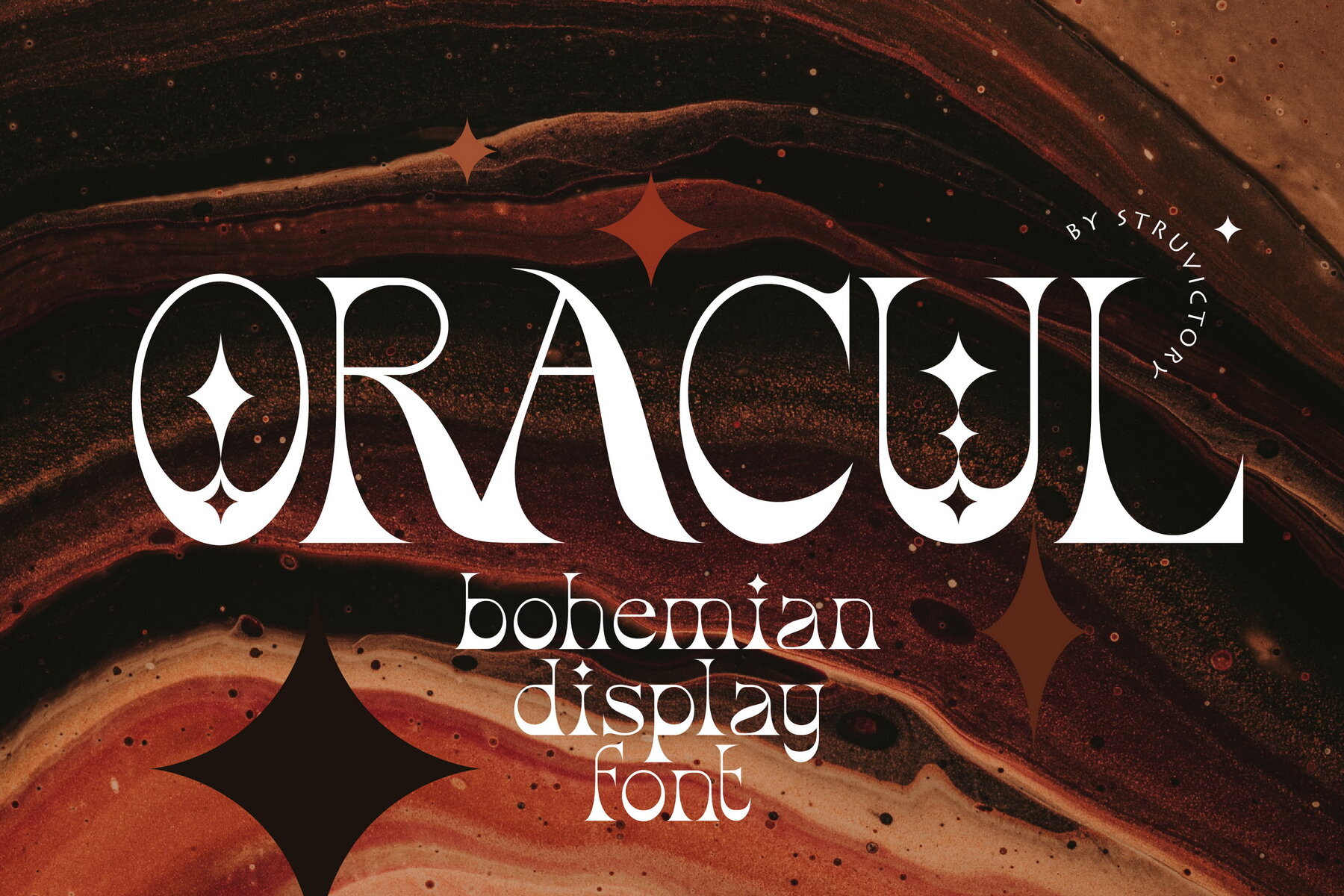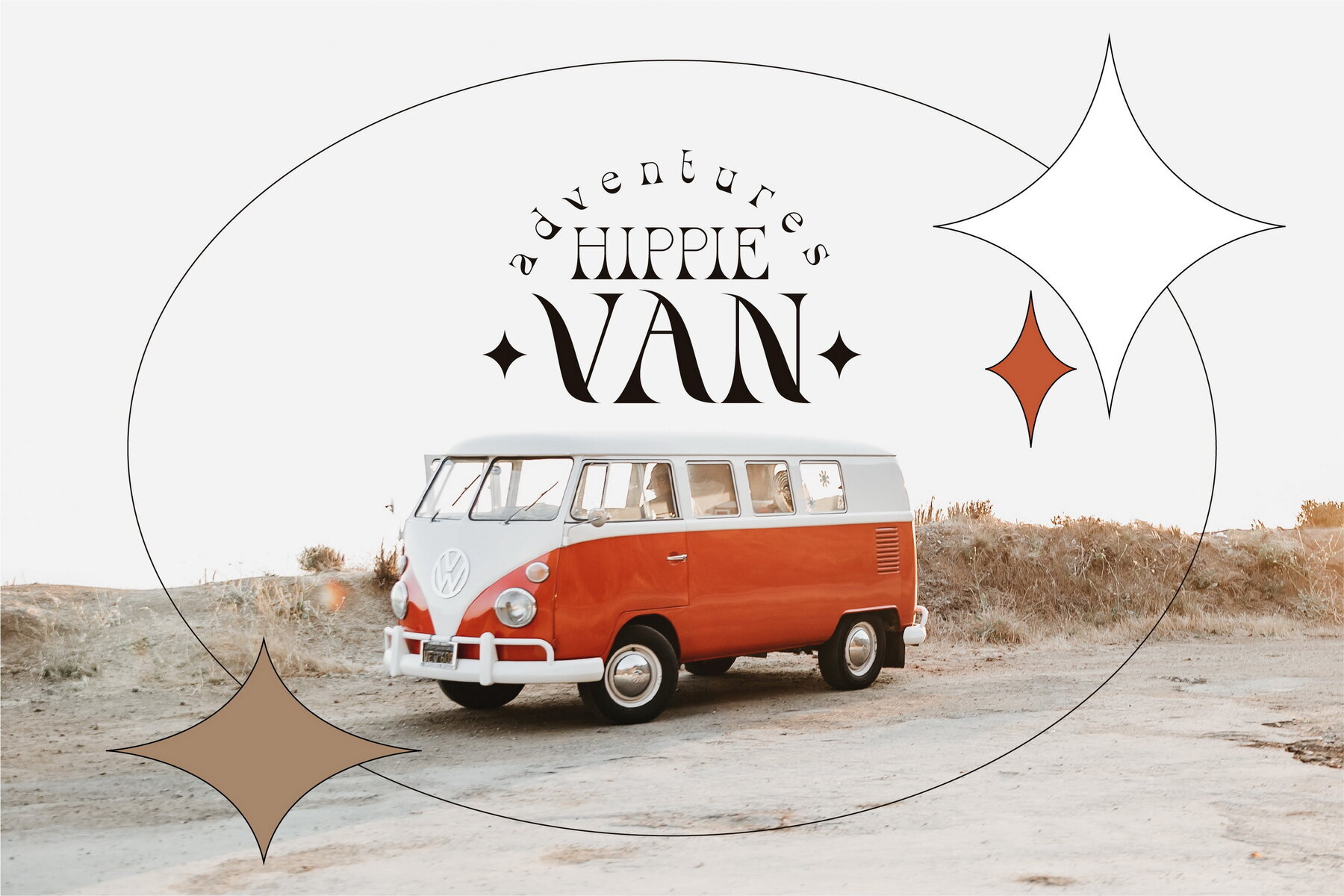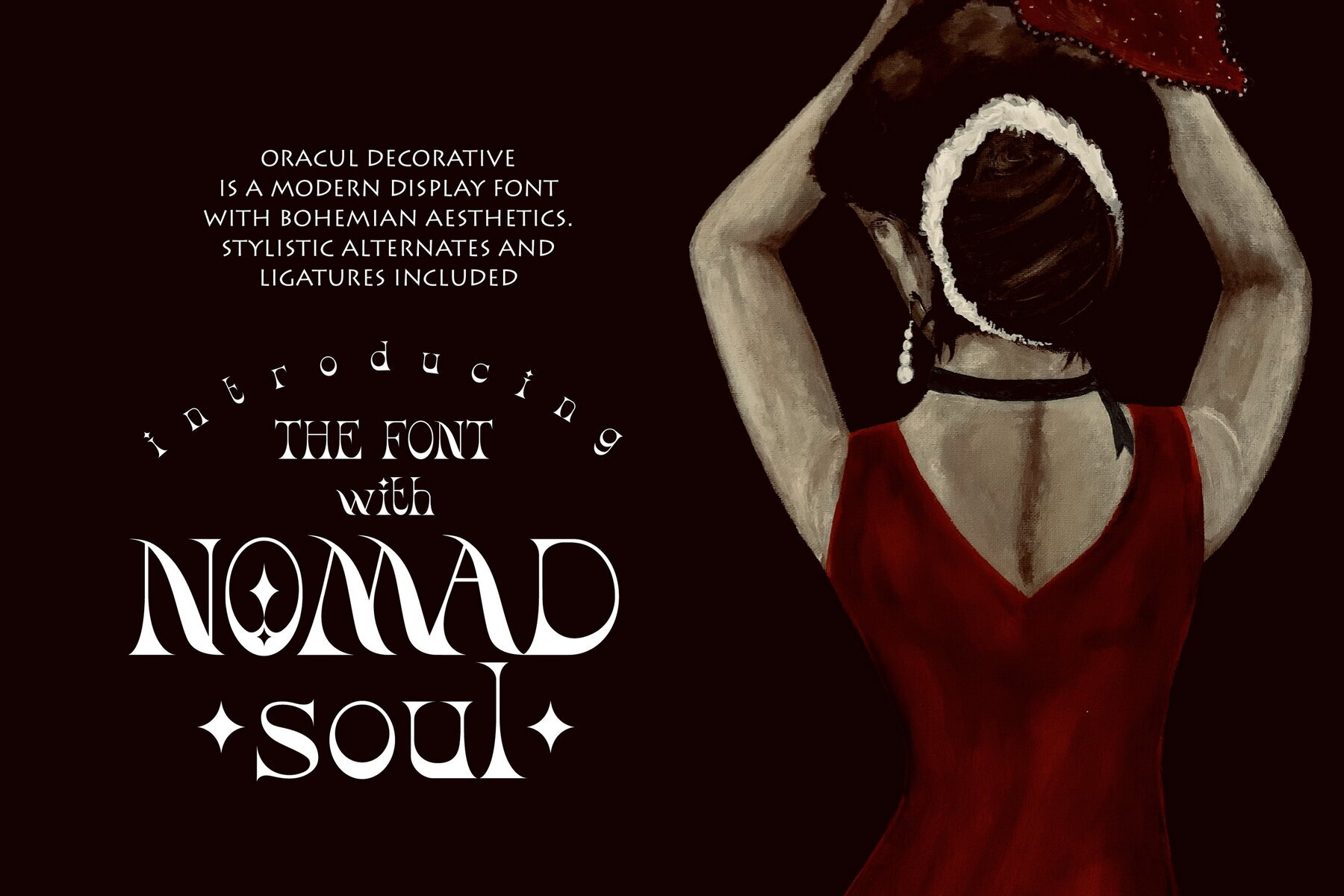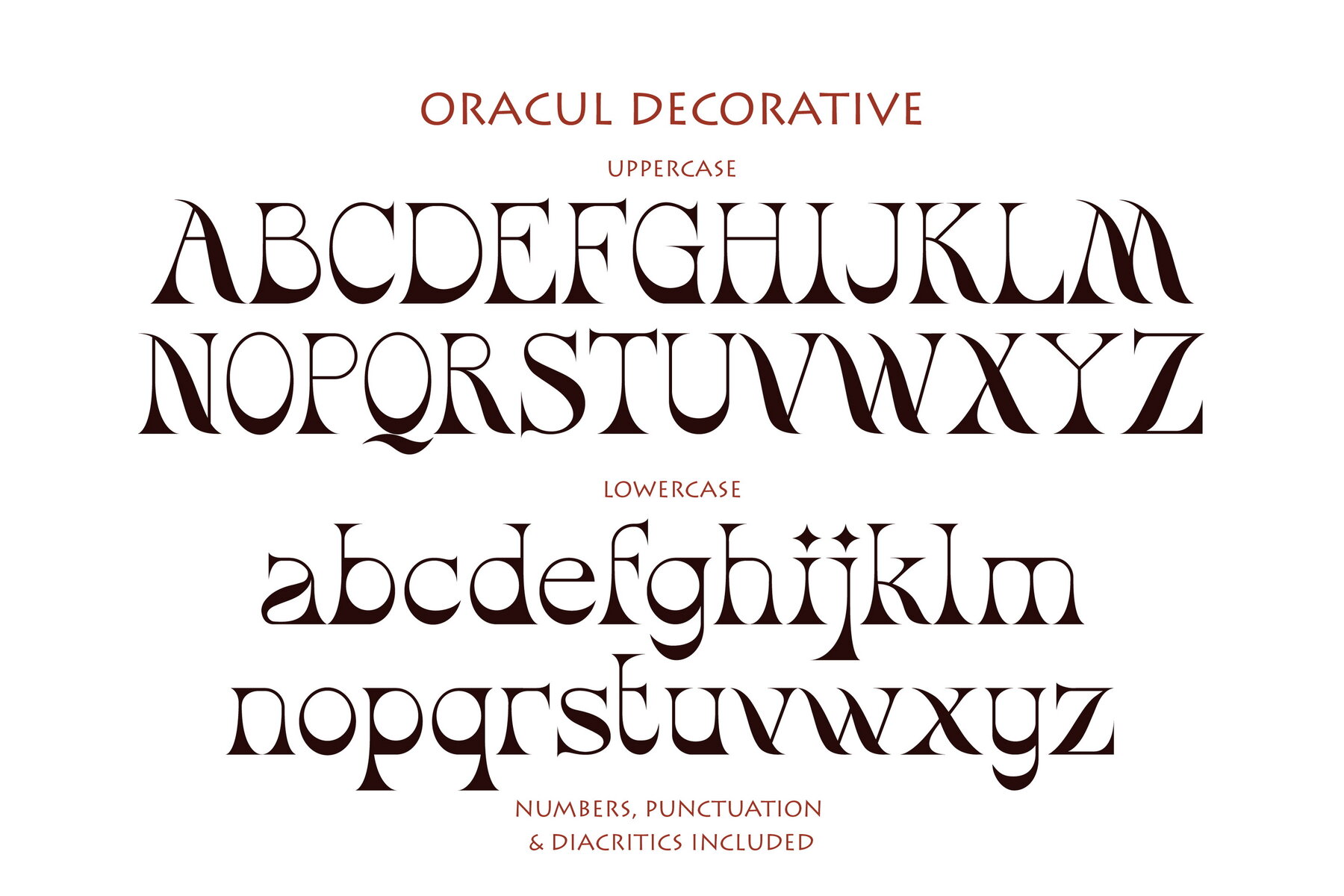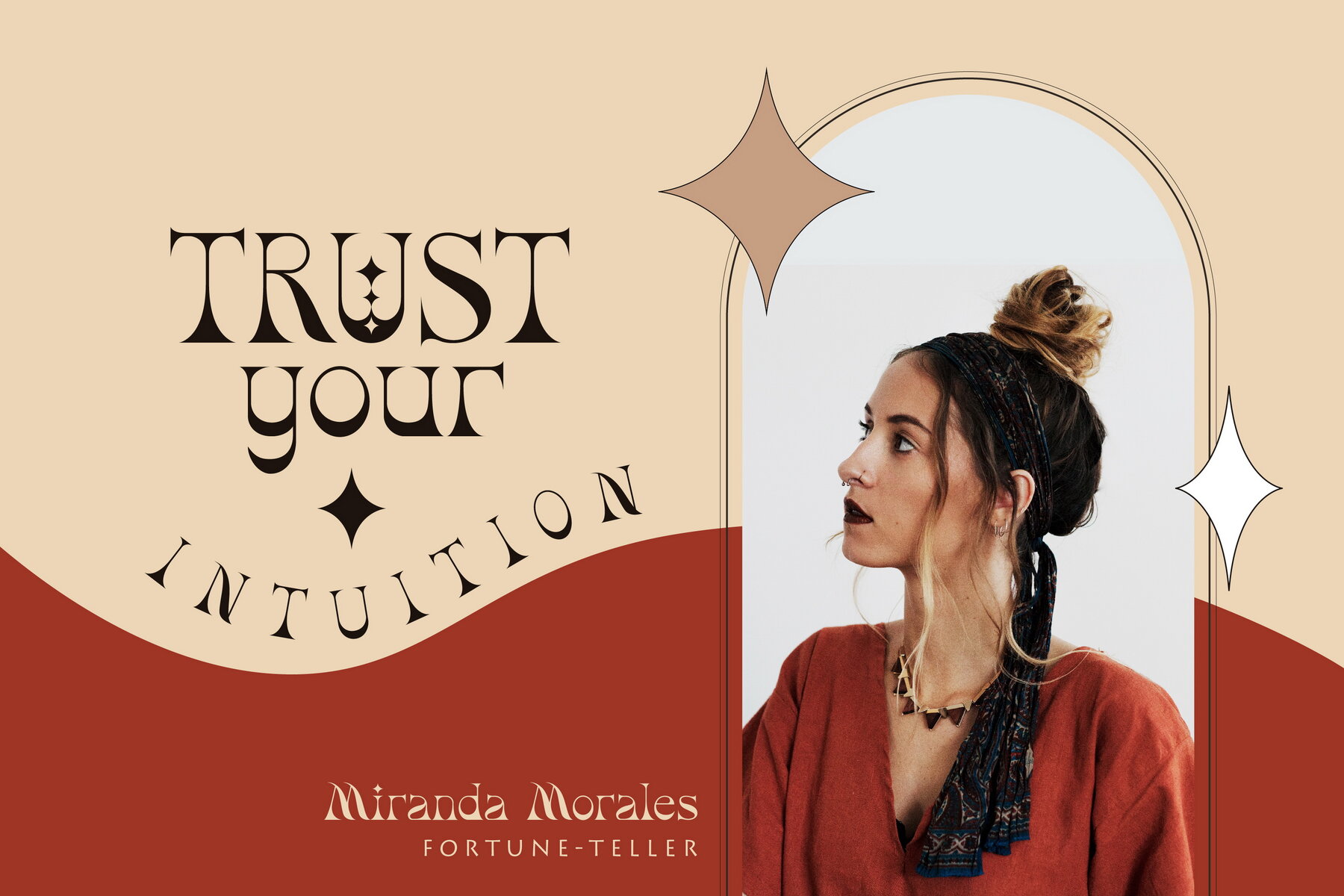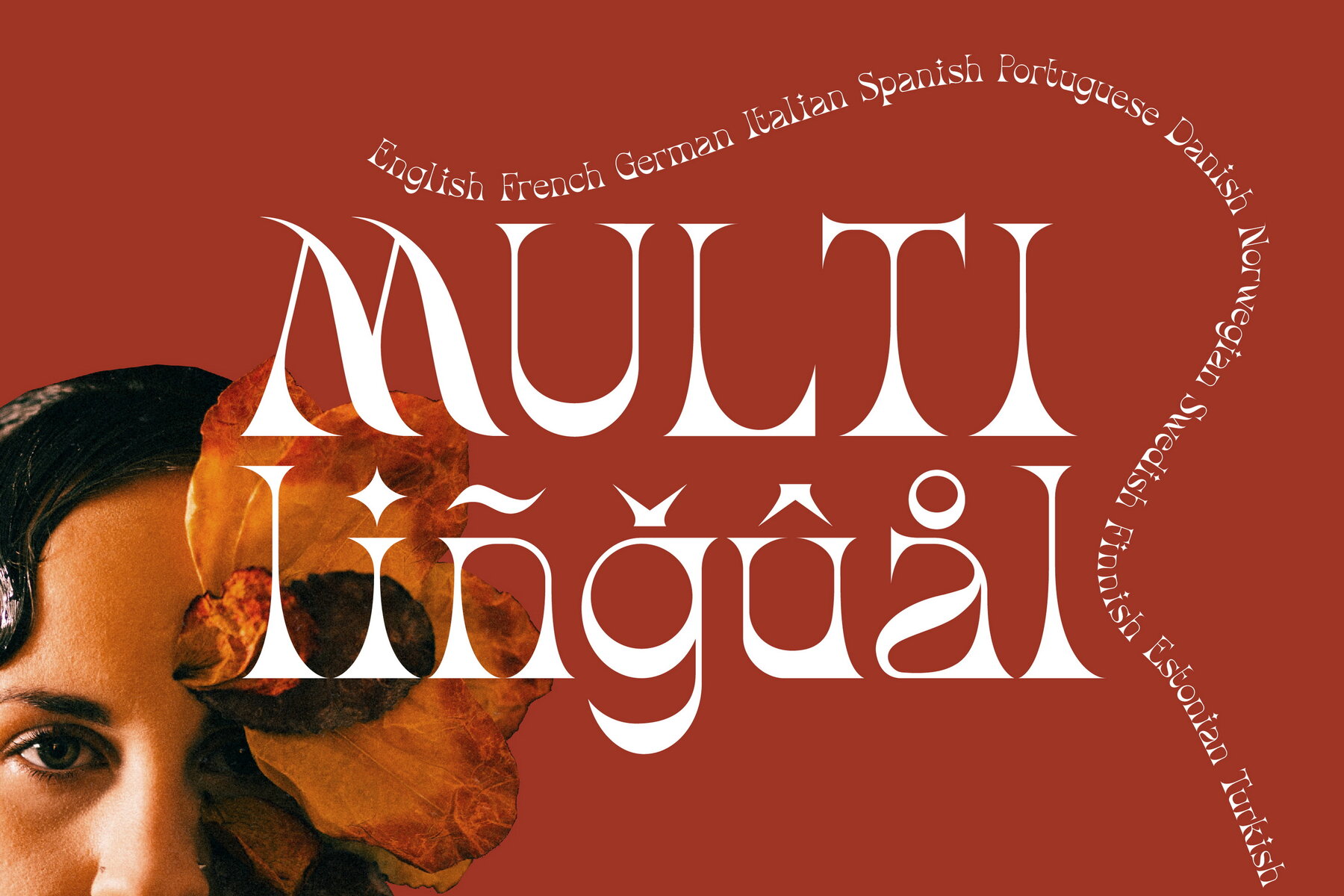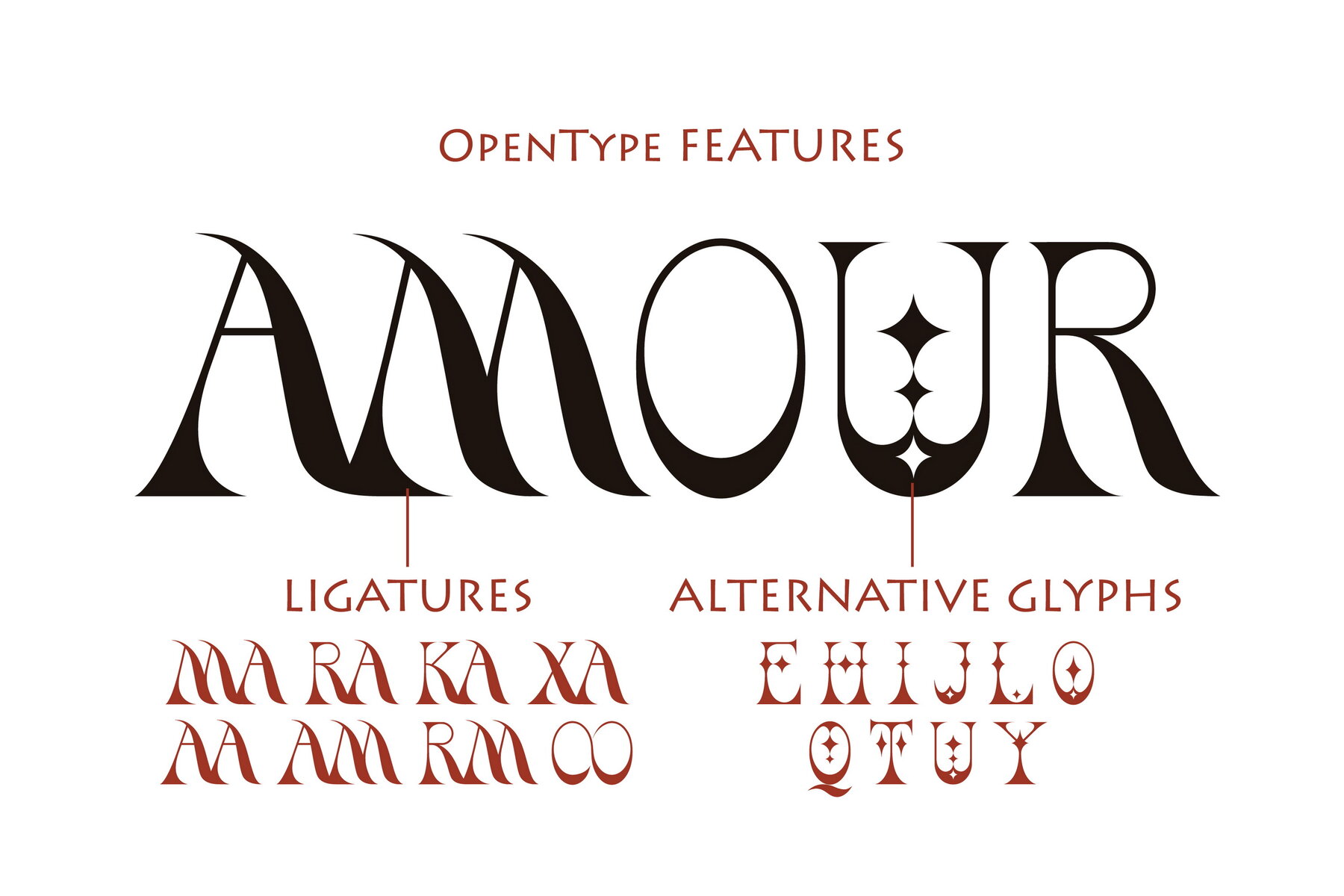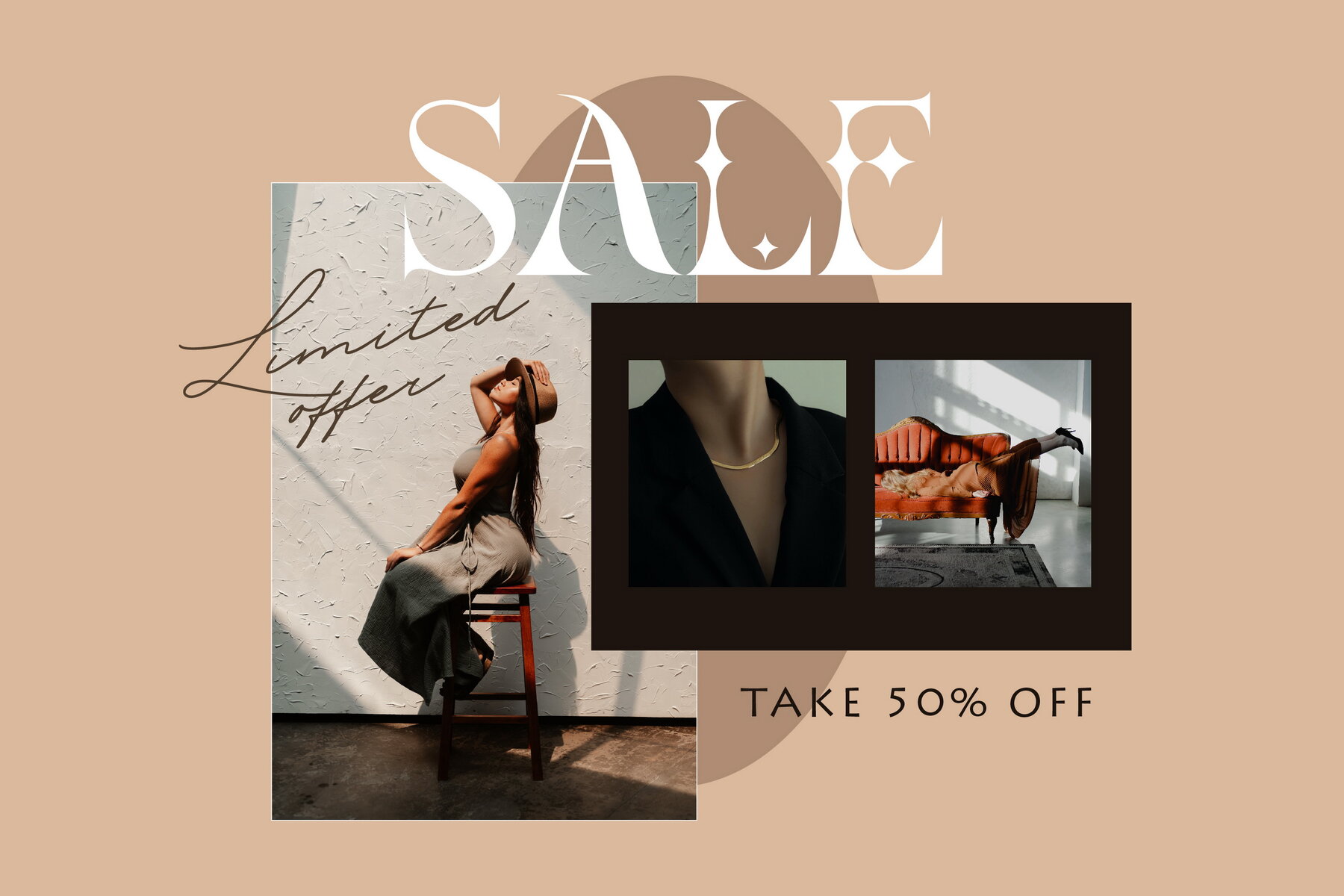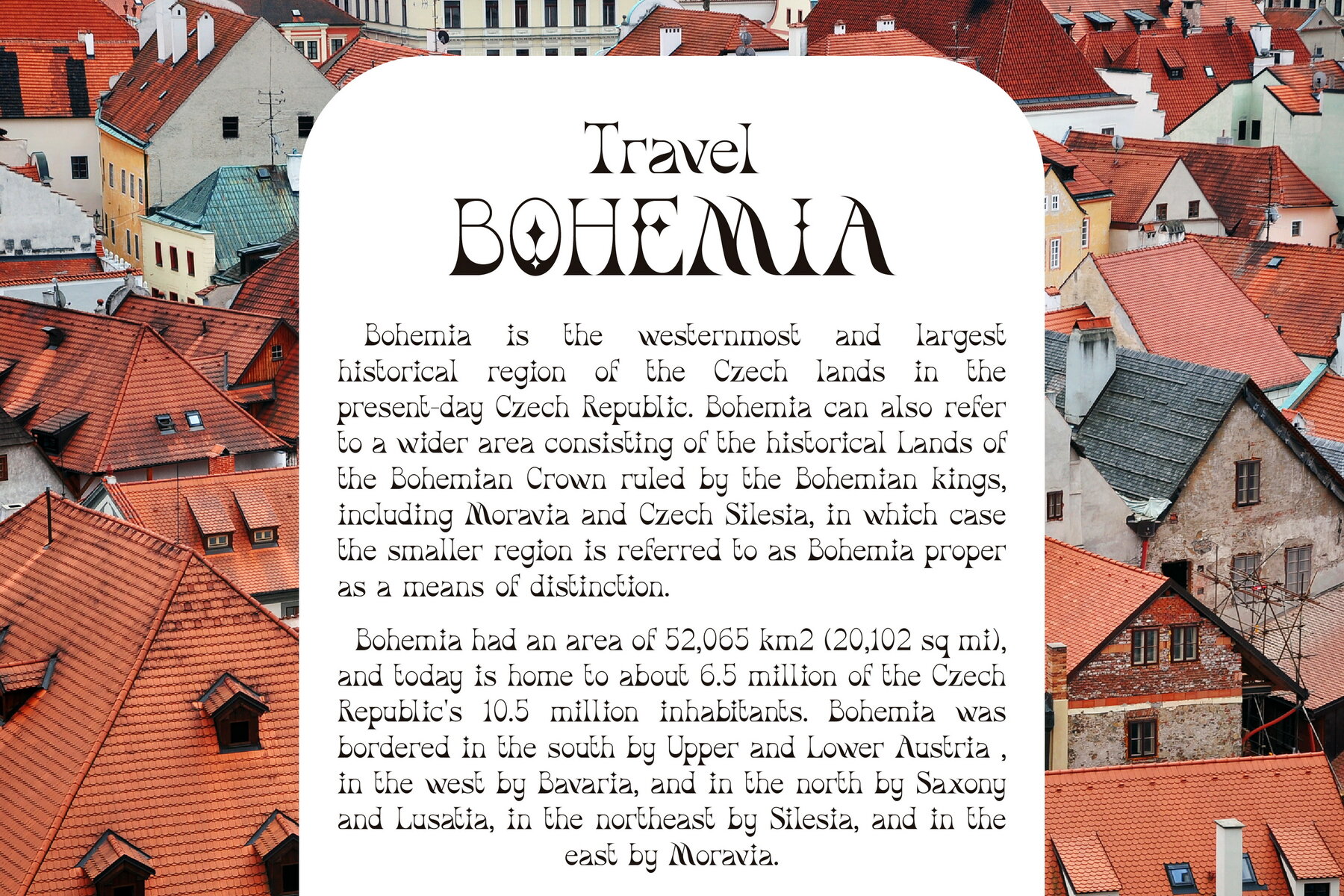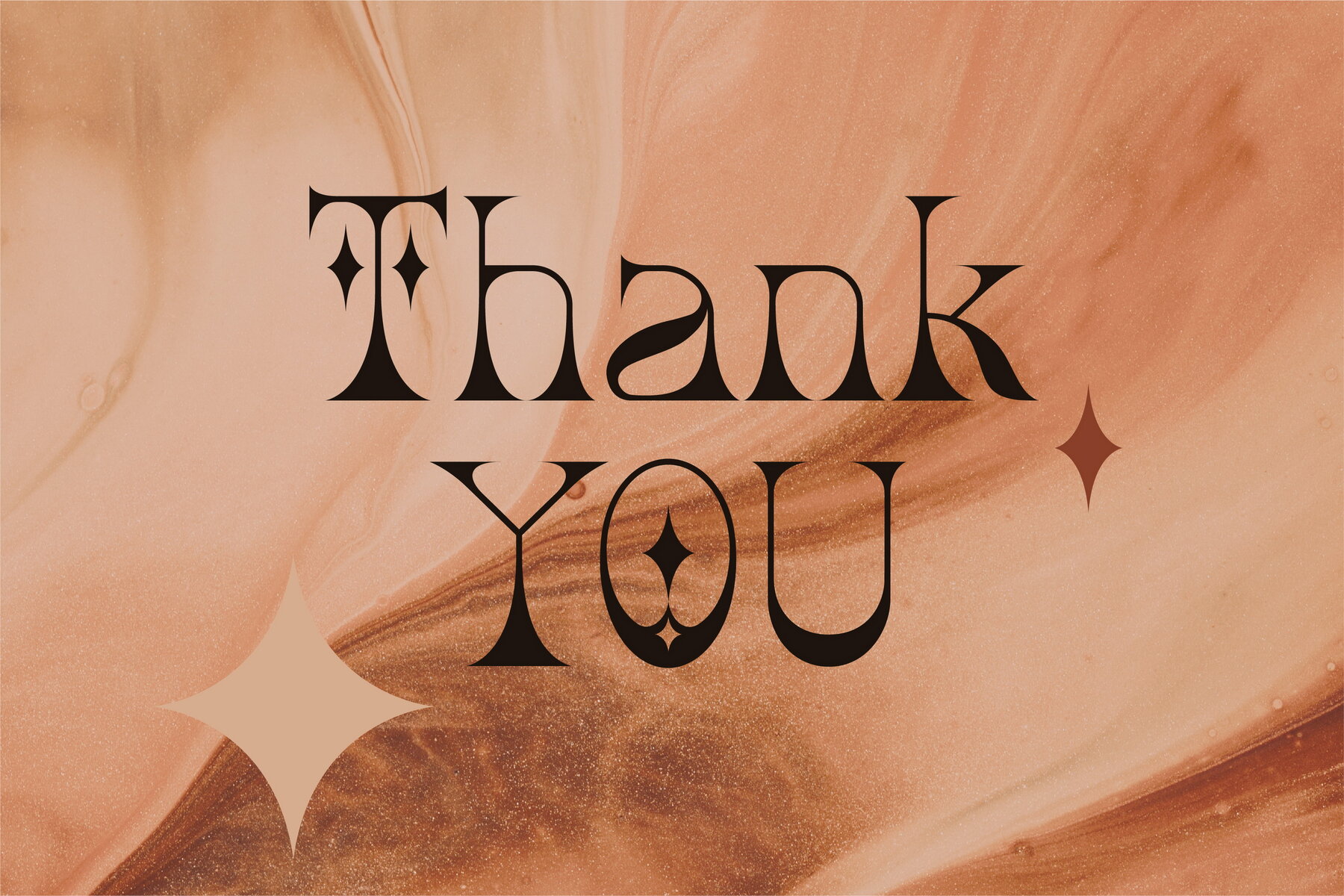
Oracul Bohemian Font
Oracul Decorative
Oracul is a modern display font infused with Bohemian motifs, featuring a unique psychedelic retro style adorned with star embellishments. Oracul offers stylistic alternates and ligatures, making it ideal for designs centered around astrology, mysticism, spirituality, witchcraft, magic, esotericism, fortune-telling, and tarot. Oracul supports a wide range of languages, including English, French, German, Italian, Spanish, Portuguese, Danish, Norwegian, Swedish, Finnish, Estonian, and Turkish. The Oracul font includes stylistic alternates for letters such as E, H, I, J, L, O, Q, T, U, and Y. Additionally, it features ligatures for combinations like MA, RA, KA, XA, AA, AM, RM, and OO.Oracul Bohemian: A Psychedelic Display Font
Comprehensive Language Support
Stylistic Alternates and Ligatures